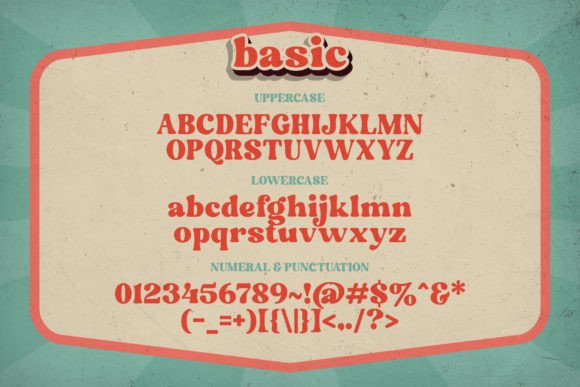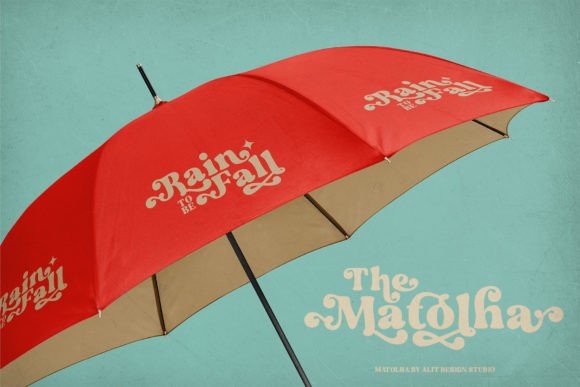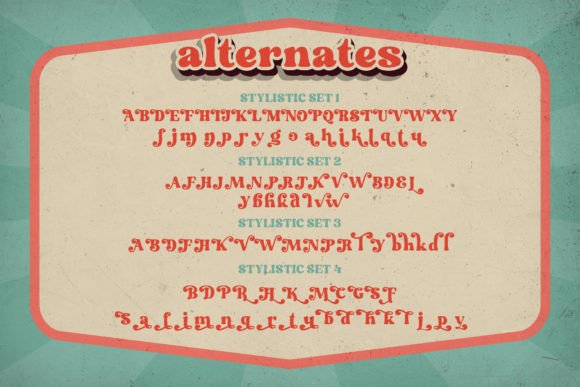
Introduction to Matolha Font
Do you remember the thrill of rummaging through your old design magazines from the 80s and 90s? The bold colors, the funky patterns, and the fonts that seemed to scream “I’m cool!”? For designers, those were the days of experimentation and creativity, where a well-chosen font could make or break a design. Today, we’re taking a trip down memory lane with the Matolha Font, a stylish and trendy typeface that’s perfect for any design project that needs a retro touch.
As a valuable design resource, the Matolha Font offers a wide selection of alternative characters and swashes that will make your designs stand out. Whether you’re working on a music cover, a YouTube thumbnail, or a magazine cover, this font is sure to add an elegant retro theme that’s hard to resist. With its PUA encoding, accessing all the glyphs and swashes is a breeze, making it a high-quality addition to any creative project.
Key Features of Matolha Font
- High-quality design resource with a unique, creative style, ideal for various projects.
- Perfect for designers working on creative projects, including graphic design, digital art, and more.
Honest Review: Matolha Font
As a designer, I’m always on the lookout for high-quality design resources to elevate my creative projects. Recently, I had the chance to work with the Matolha Font, and I’m excited to share my honest review.
- Unique and creative design: The Matolha Font has a distinctive look that adds a touch of personality to any design project.
- High-quality font files: The font files are crisp and clear, making it perfect for print and digital designs.
- Transparent background: The font’s transparent background can sometimes be tricky to work with, especially when designing with complex backgrounds.
- Limited font styles: The Matolha Font comes in a limited range of font styles, which may not be suitable for designers who require a wide range of options.
Overall, the Matolha Font is a solid addition to any designer’s toolkit. While it may have some limitations, its unique design and high-quality font files make it a valuable resource for creative projects. With a little creativity and patience, designers can work around its limitations and achieve amazing results.
The Matolha Font is a versatile, high-quality font that can be used in a variety of creative projects. With its unique design and transparent background, it’s a valuable resource for designers and artists.
Tips for Getting the Most Out of Matolha Font
For optimal results, use the Matolha Font on a transparent background to create a seamless design.
Experiment with different font sizes and styles to add depth and visual interest to your project.
The Matolha Font is ideal for:
Graphic design projects
Marketing materials
Web design
Print design
Is the Matolha Font suitable for large-scale printing projects?
Yes, the Matolha Font is designed to be high-quality and scalable, making it perfect for large-scale printing projects. The font’s clear lines and precise details ensure that it will look great in print, even at large sizes. Just be sure to check the font’s compatibility with your specific printing software and equipment.